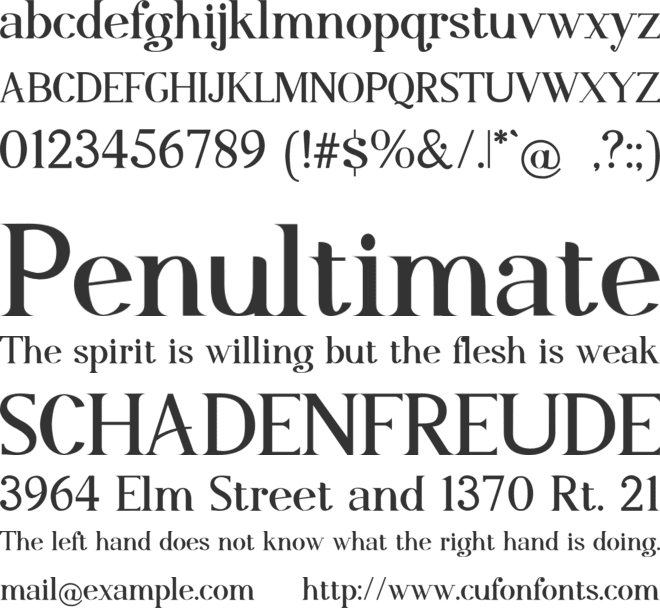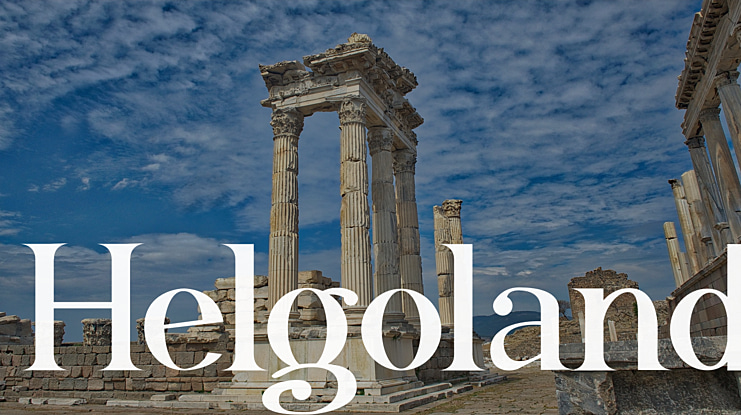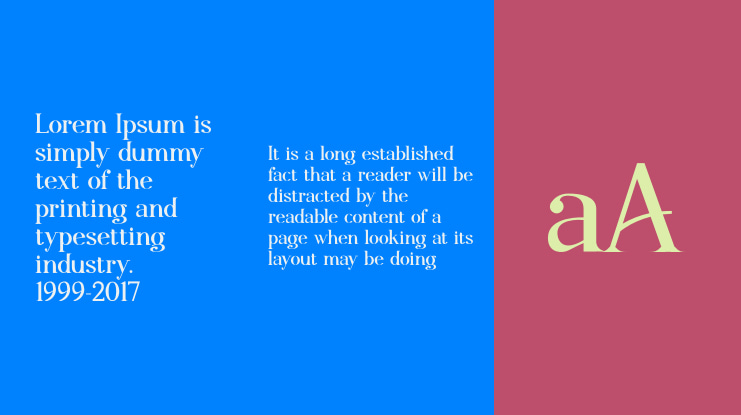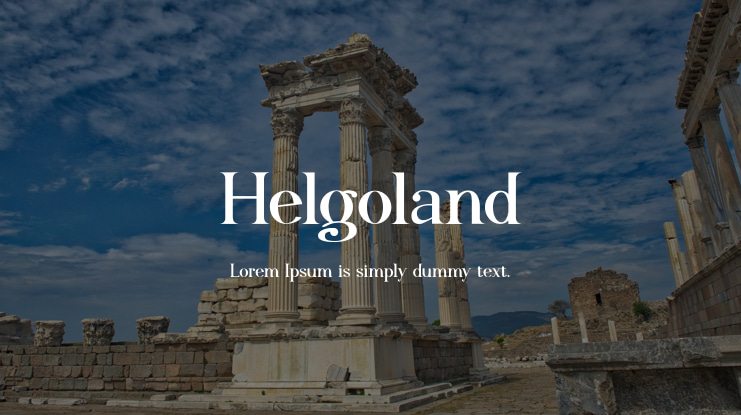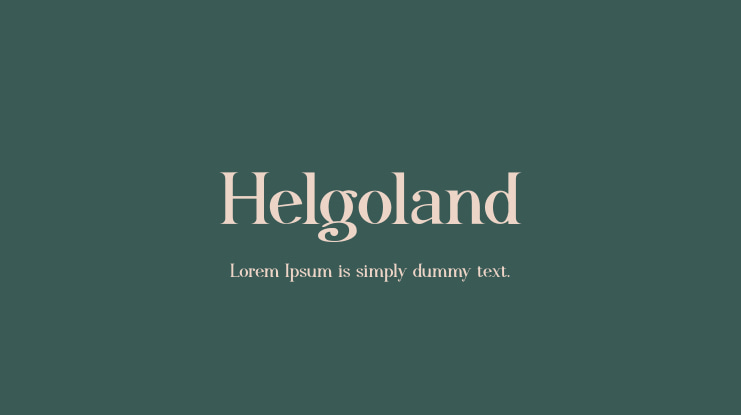
Helgoland Font
Helgoland is a modern serif font, suitable for many different applications including posters, web design, storefronts and much more.
The font was designed with the following languages in mind:
Basque, Croatian, Danish, Dutch, Esperanto, Estonian, Finnish, French, Frisian, German, Hawaiian, Hungarian, Latvian, Lithuanian, Māori, Norwegian, Polish, Slovenian, Spanish, Swedish, Turkish.
This way it should contain most glyphs commonly used by almost every Latin language.